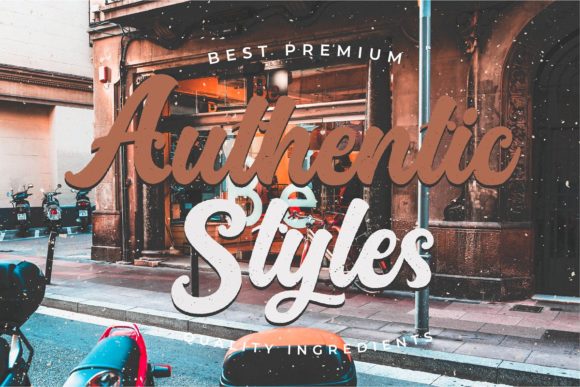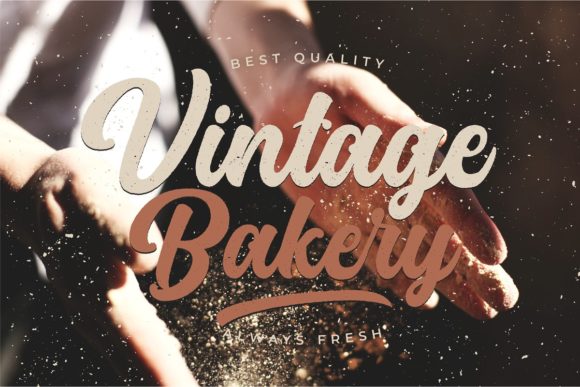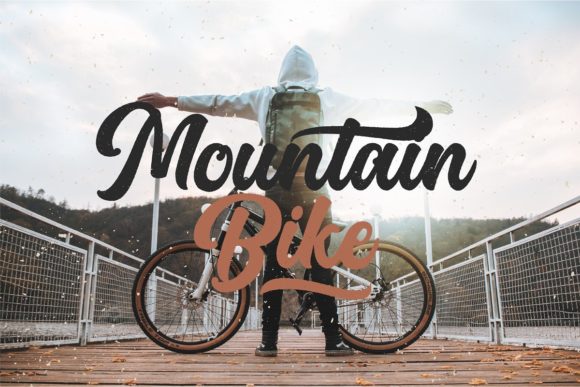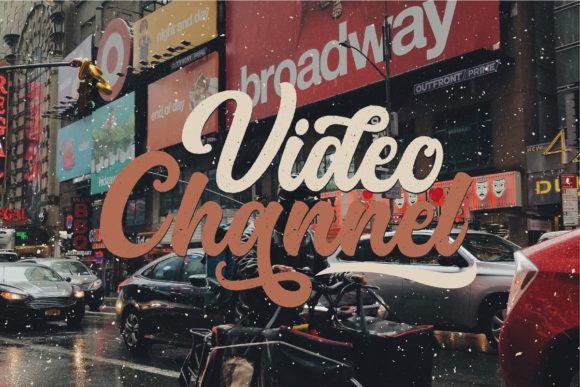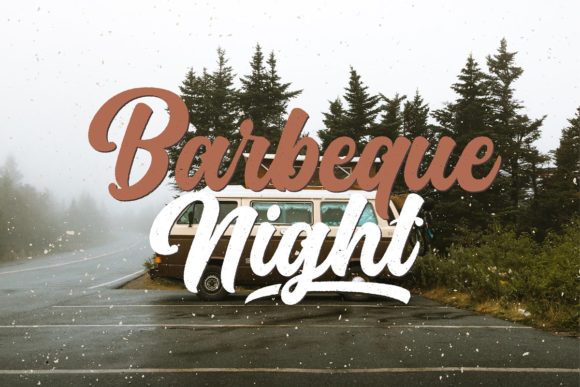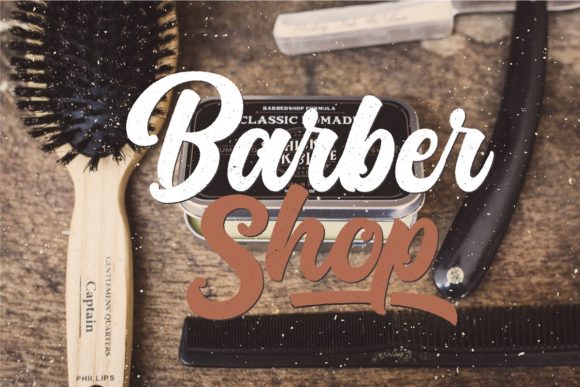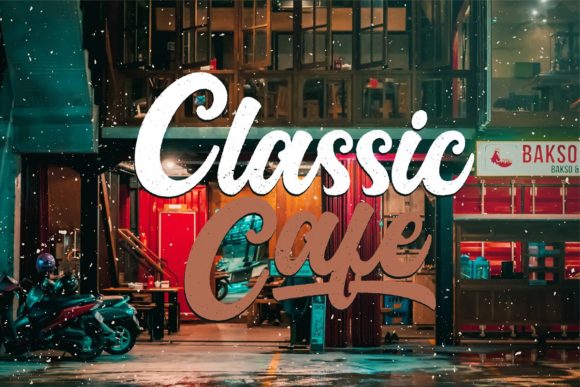
Platina Script – Rough Font
About Platina Script – Rough Font
Platina Script is a bold handwritten font, carefully handcrafted to become a true favorite. This font is the perfect fit for all of your logos, branding, social media, and crafty DIY projects.